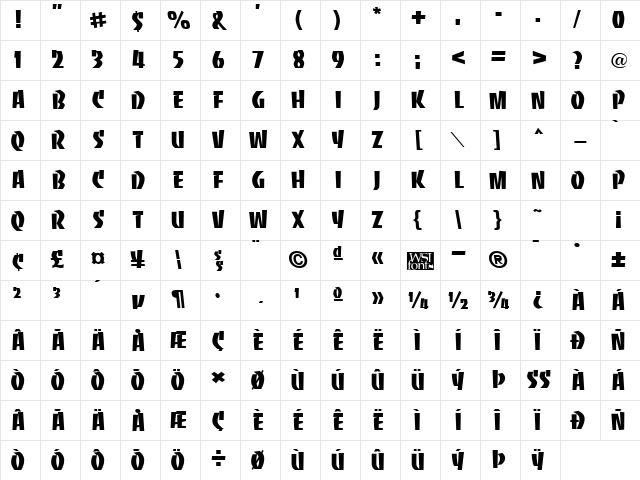
BaccaratUpright Regular
Design Context for BaccaratUpright
BaccaratUpright is a composed and adaptable typeface that performs quietly and consistently across a wide range of design contexts.